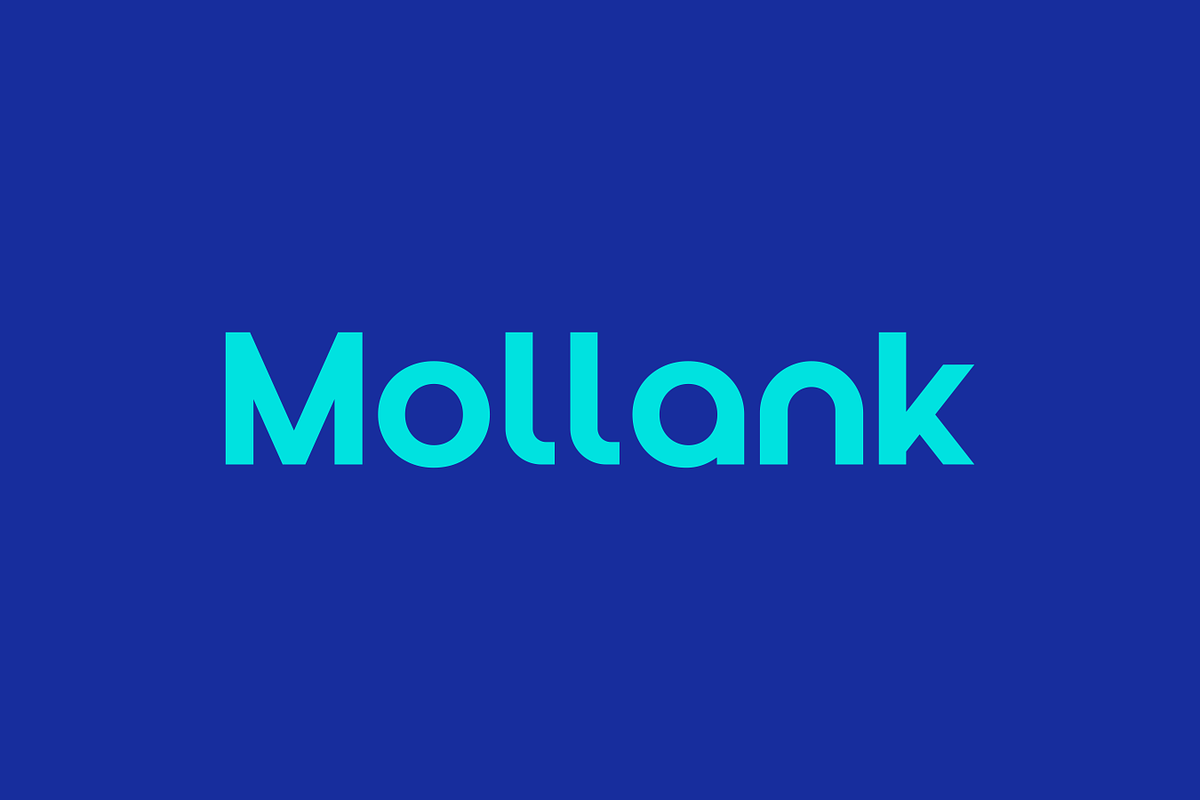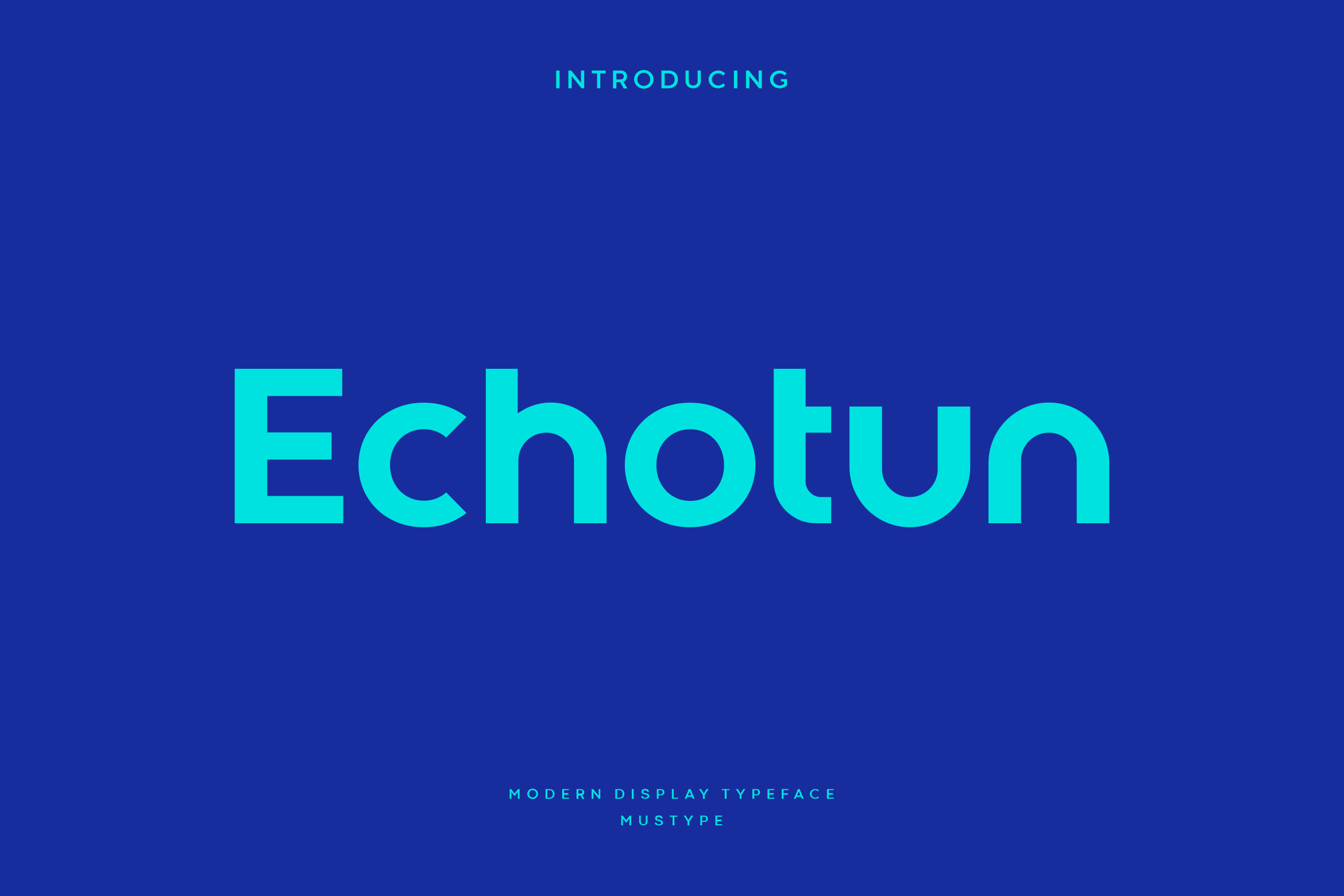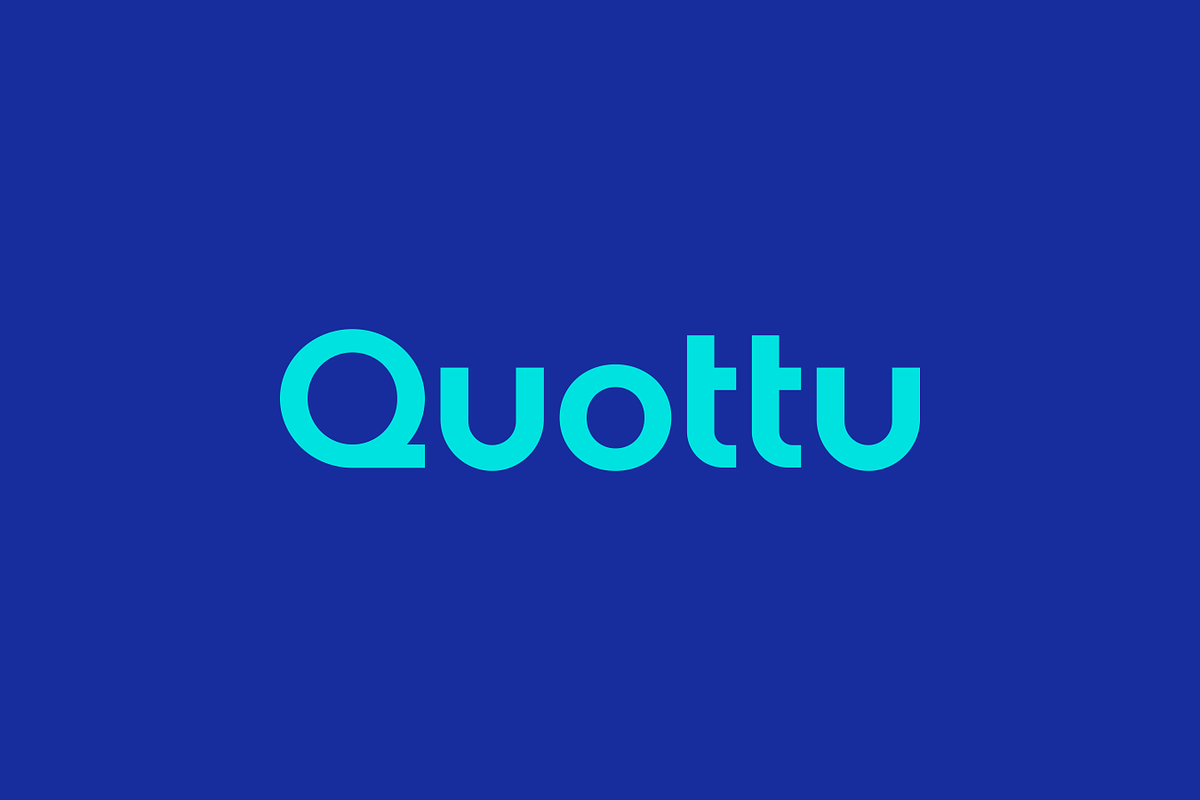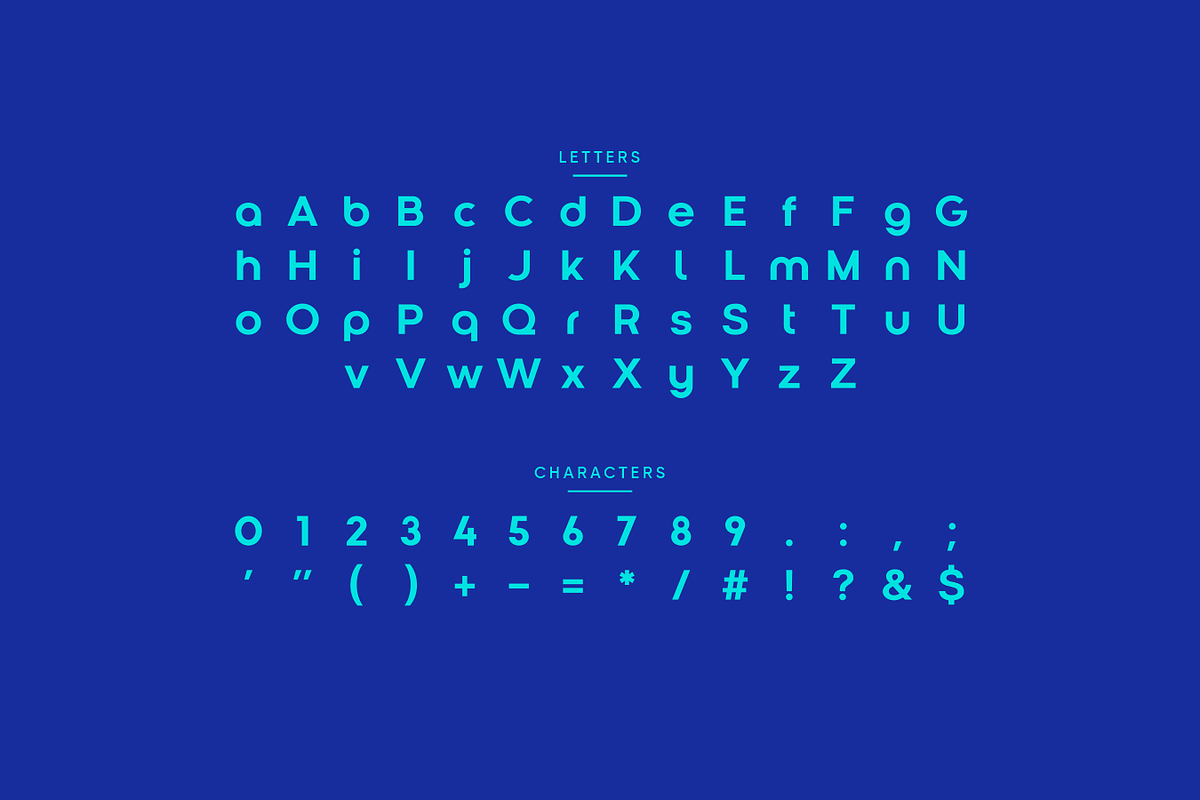
Echotun - Modern Logo Typeface
Echotun is a meticulously crafted typeface designed specifically for logos, branding, headers, and titling. With spacing tailored for impactful logos and branding materials, Echotun Font ensures your designs make a lasting impression. Please note, Echotun Font is not suitable for body text, but excels in visual applications where every detail matters. Elevate your design projects with Echotun Font today.